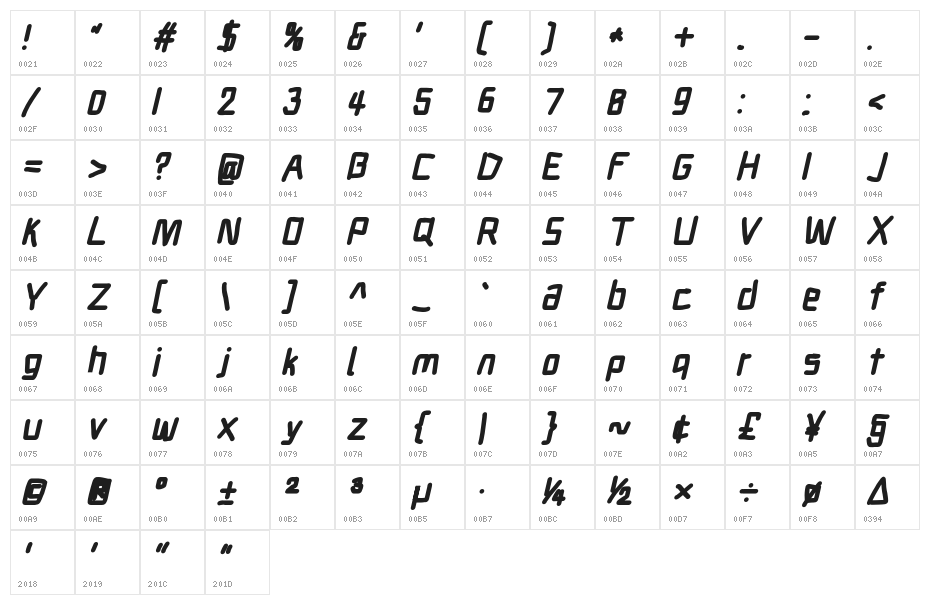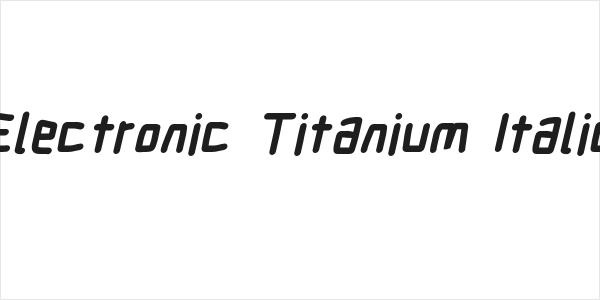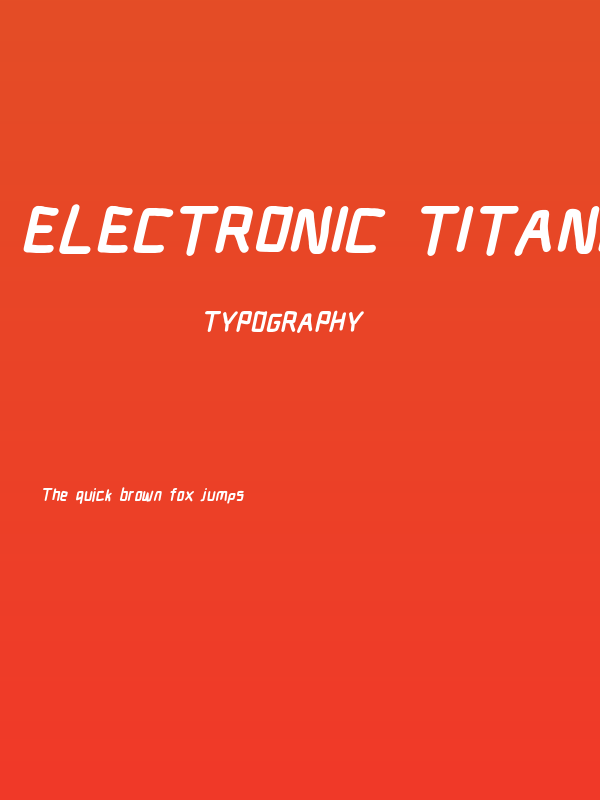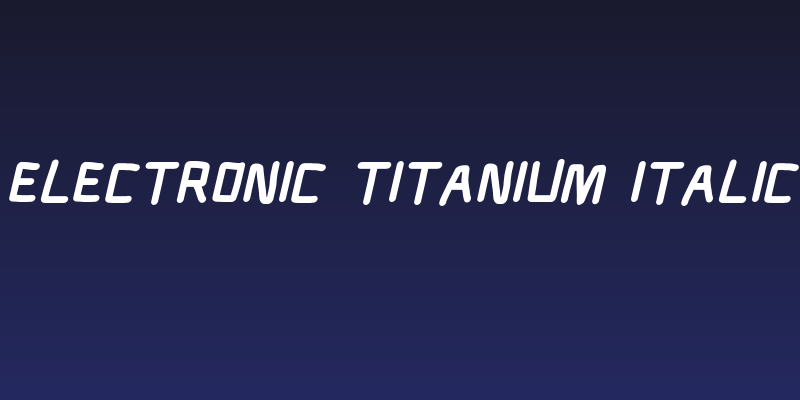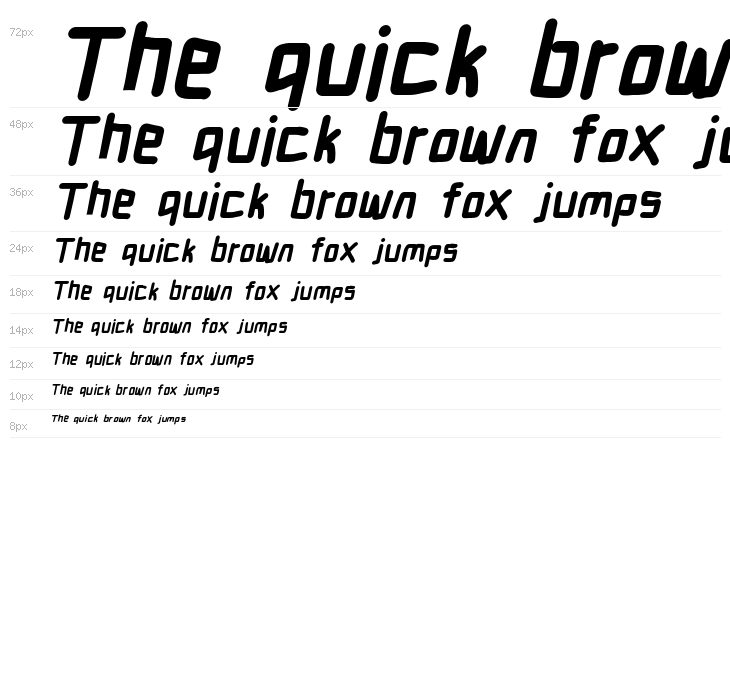
Electronic Titanium Italic Font
Electronic Titanium Italic Description
This font features a modern, italicized style with a futuristic and dynamic appearance. The characters are slightly slanted, giving a sense of motion and speed. The strokes are bold and consistent, with rounded edges that soften the overall look. The uppercase and lowercase letters maintain a uniform height, contributing to a cohesive design. The numerals are clear and legible, matching the style of the alphabet. Special characters are well-integrated, ensuring versatility in various contexts. This font's unique style makes it suitable for projects that require a contemporary and energetic feel.
| Use Case | Logos, Headlines, Branding |
| Proposed Projects | Ideal for technology branding, sports team logos, futuristic designs, and dynamic advertising campaigns. |